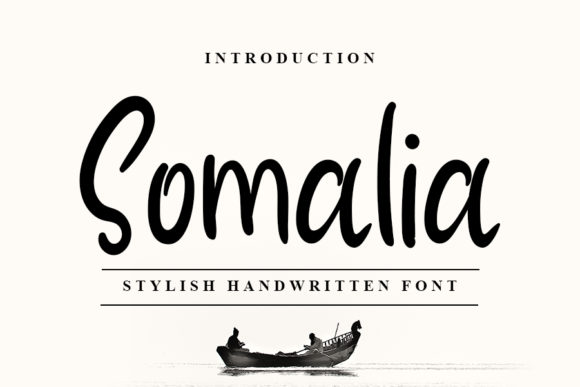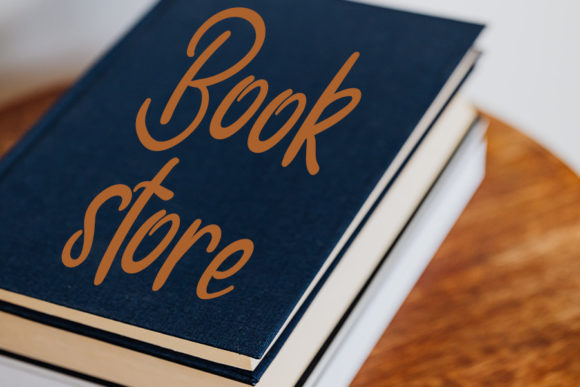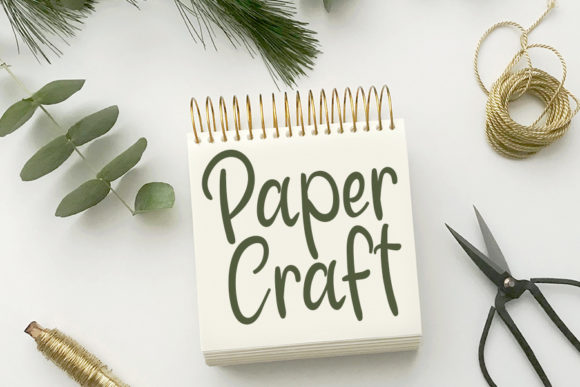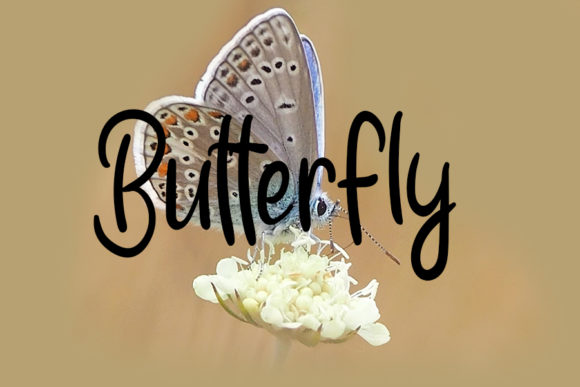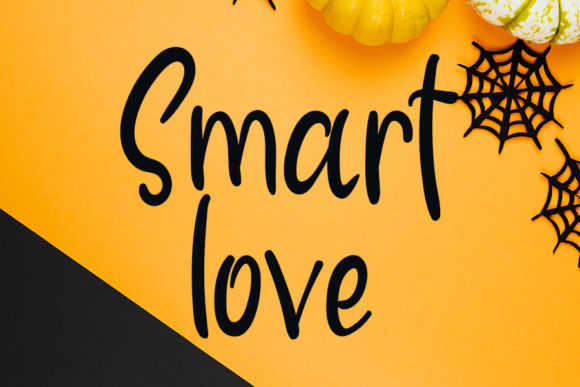
Somalia Font
About Somalia Font
Somalia is a stylish and modern handwritten font. Its trendy style makes this font the ideal choice for any design that requires a friendly touch.